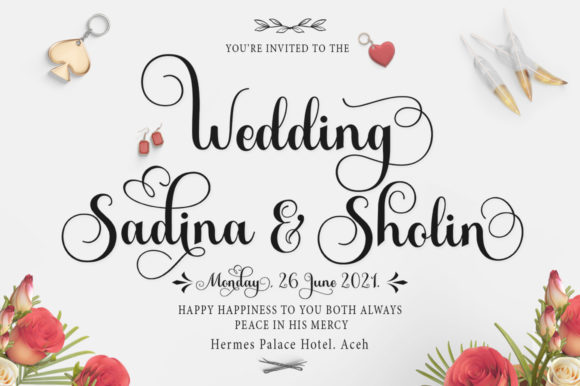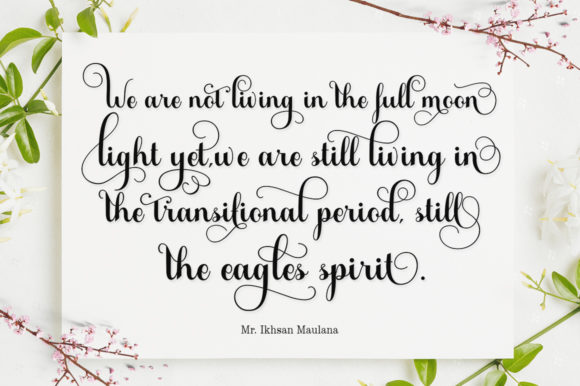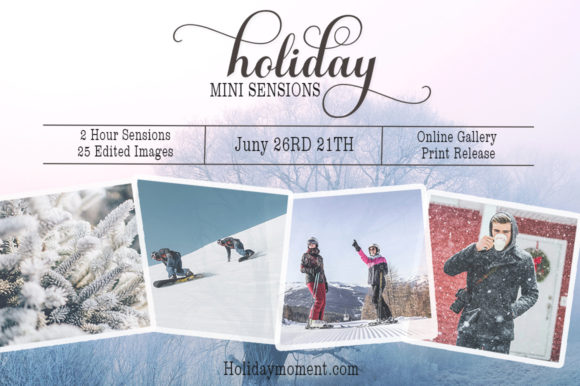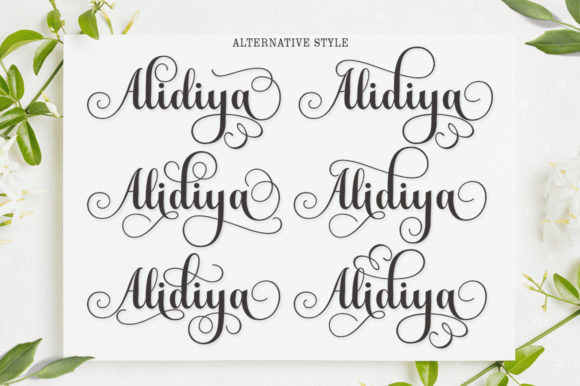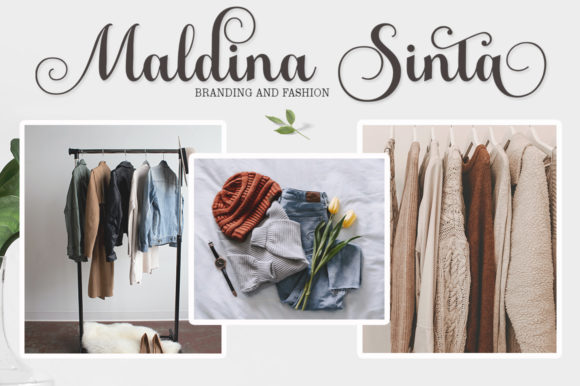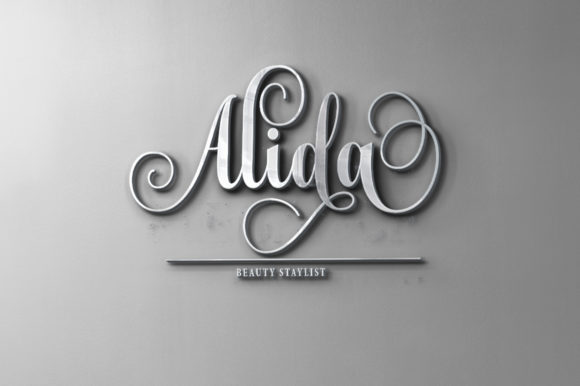
Baby Algutta Font: The Ultimate Modern and Romantic Handwritten Font for Designers and Crafters
In the world of typography, fonts play a crucial role in conveying emotions and setting the tone for various design projects. For designers and crafters looking for a modern and romantic touch, Baby Algutta Font is an excellent choice. This beautiful handwritten font is perfect for creating stunning posters, flyers, and prints that capture the essence of sweetness and charm.
What Makes Baby Algutta Font Special?
Baby Algutta Font is a modern and romantic handwritten font that boasts round and sweet characters, making it a versatile choice for various design projects. Its unique features include:
- Modern and Romantic: Baby Algutta Font exudes a sense of modernity and romance, making it perfect for designs that require a touch of elegance and sophistication.
- Round and Sweet Characters: The font features round and sweet characters that add a playful and whimsical touch to any design.
- PUA Encoded: Baby Algutta Font is PUA (Private Use Area) encoded, which means that users can access all the glyphs and swashes with ease, making it convenient to use for various design projects.
Uses of Baby Algutta Font
Baby Algutta Font is an incredibly versatile font that can be used for a wide range of design projects, including:
- Posters: Create eye-catching posters for events, promotions, or announcements that require a touch of modernity and romance.
- Flyers: Design stunning flyers for businesses, products, or services that need to make a lasting impression.
- Prints: Use Baby Algutta Font for various print materials, such as brochures, catalogs, or invitations, to add a touch of elegance and sophistication.
Benefits of Using Baby Algutta Font
By using Baby Algutta Font, designers and crafters can enjoy several benefits, including:
- Ease of Use: The font is PUA encoded, making it easy to access all the glyphs and swashes, even for users with limited design experience.
- High Versatility: Baby Algutta Font can be used for a wide range of design projects, from posters and flyers to prints and more.
- Unique and Creative: The font’s modern and romantic style ensures that designs stand out from the crowd and leave a lasting impression.
Tips for Using Baby Algutta Font Effectively
To get the most out of Baby Algutta Font, consider the following tips:
- Pair with Other Fonts: Experiment with pairing Baby Algutta Font with other fonts to create a unique and visually appealing design.
- Adjust Font Size and Style: Adjust the font size and style to suit the design project and ensure that the text is easy to read.
- Use Swashes and Glyphs: Take advantage of the font’s PUA encoding and use swashes and glyphs to add a touch of elegance and sophistication to the design.
In conclusion, Baby Algutta Font is an excellent choice for designers and crafters looking for a modern and romantic handwritten font. Its unique features, versatility, and ease of use make it perfect for creating stunning posters, flyers, and prints. By following the tips outlined above, users can get the most out of this beautiful font and create designs that capture the essence of sweetness and charm.